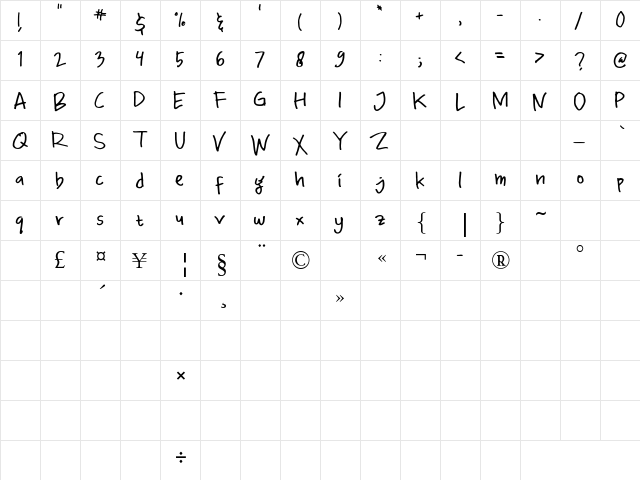
Priandhani Prime Regular
Design Context for Priandhani Prime Typeface
Priandhani Prime is a composed and adaptable typeface that performs quietly and consistently across a wide range of design contexts.